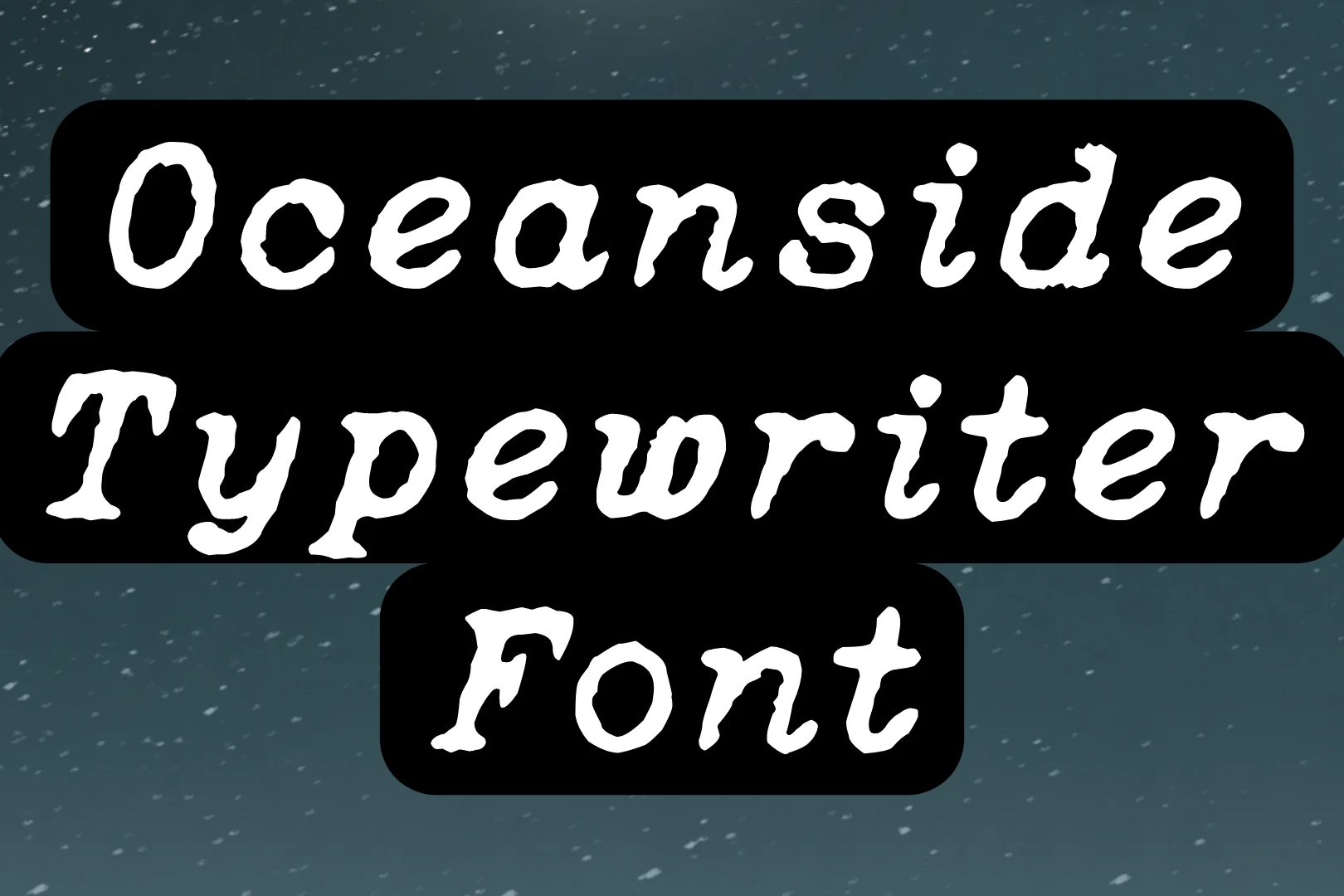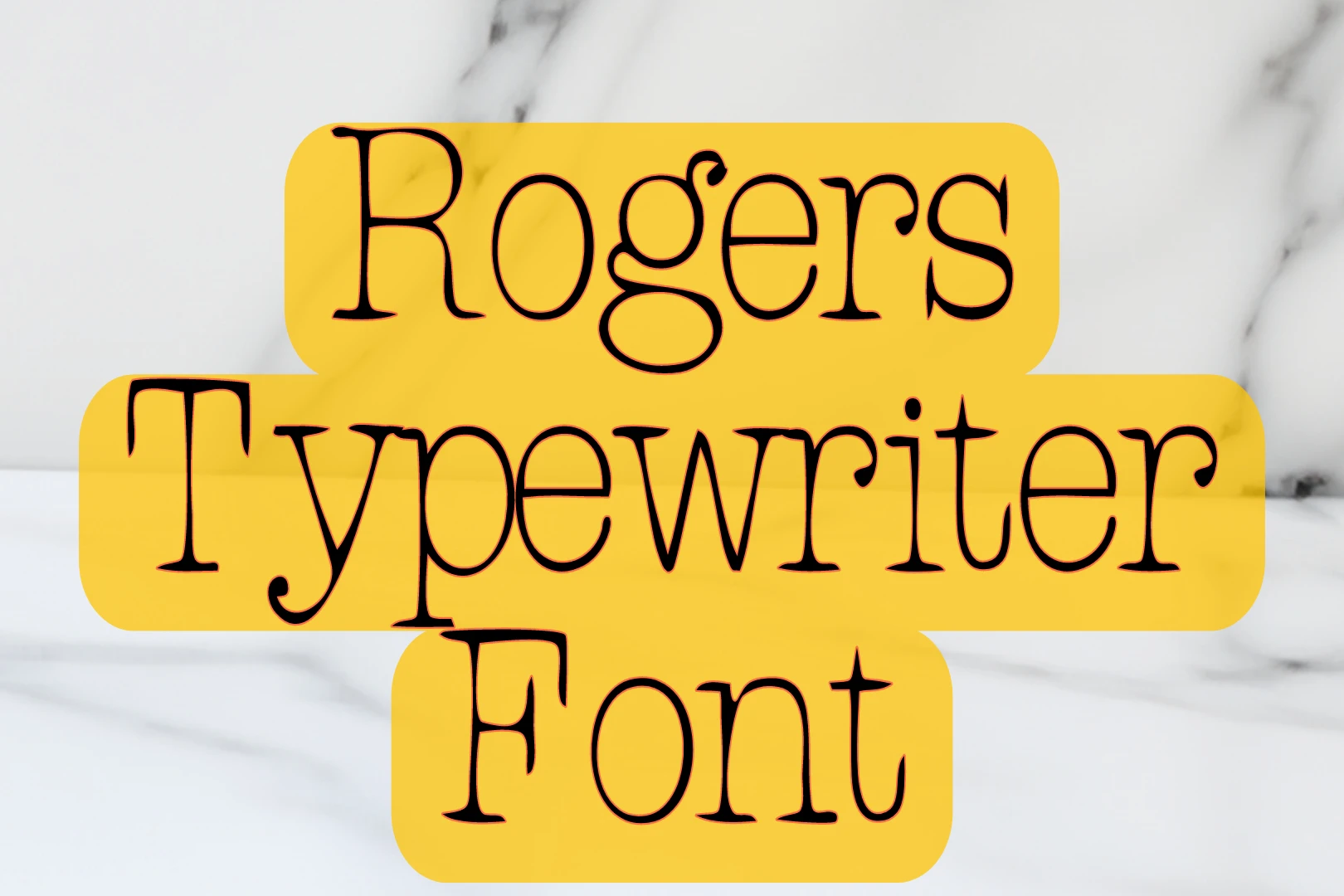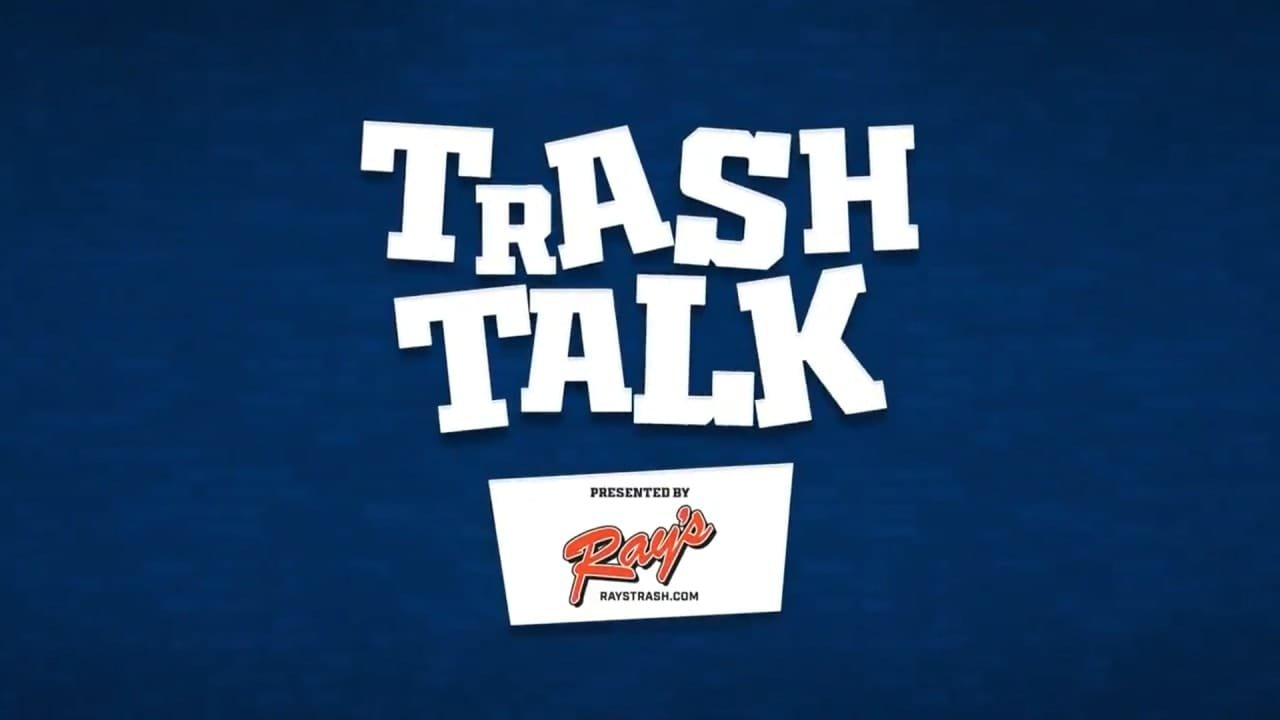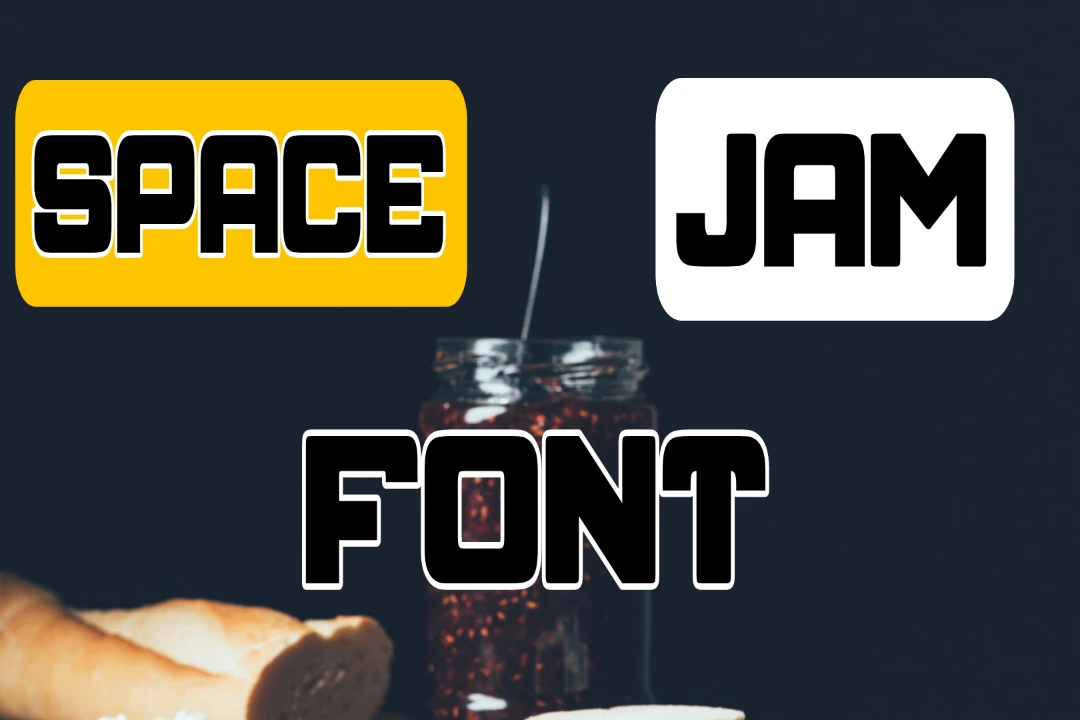
Space Jam Font was designed by a famous graphic designer that is known as the name of Carol Twombly. This unique texture is perfect for various creative projects, it is freely available for personal use and can be downloaded easily. It comes in multiple formats, …
‘Miami Vice Font Free Download’ is a trending keyword among designers who want a retro and neon-style typeface. Inspired by the iconic Miami Vice logo, this font falls under the fancy and retro display category and is perfect for vintage-themed designs. It is widely used …
Falsthan Font is a modern and sleek sans-serif typeface designed by Nikita Galkin and published by TypeType. With its clean lines and geometric forms. It is designed to meet the needs of contemporary digital and print design. The font was created with versatility in mind, …
Metropolian Font was designed by Empire of Dust and is under the category of fancy texture family with both OTF and TTF file formats. It is a versatile font that adds an elegant touch to any design project. With its intricate details and sophisticated curves, …
The Trash Talk Font is an innovative typeface designed and published by MJType. It falls under the category of urban fonts, known for their edgy and street-inspired appearance. With its bold design, it offers a unique personality that can enhance various design projects. It was …
The Golden Star font, designed by Jonathan S. Harris, is a captivating typeface falling under the Fancy and Cartoon categories. This font created in 2013, it offers a playful yet elegant aesthetic, making it a versatile choice for various design projects. With hand-drawn strokes and …
Jelly Crazies Font is a captivating font designed by Imagex, seamlessly nestled within the vibrant and dynamic Cartoon Texture font family. This font boasts a unique and whimsical personality that sets it apart, making it an ideal choice for projects seeking a playful and lighthearted …
Maquina De Escribir Font was designed by a famous typographic designer Woodcutter and stands out as an extraordinary typewriting marvel. This fancy font boasts a collection of exceptional glyphs and characters, delivering a unique typewriting texture that adds a distinctive touch to various design projects. …
Oceanside Typewriter Font, is a brainchild of the creative mind Lukas Krakora, is a delightful fusion of nostalgia and modern design. Transporting us back to the era of classic typewriters, this font injects a unique character into contemporary projects, offering designers a distinctive touch that …
Radio Newsman Font, a creation of typographic visionary Shara Weber, is a font that seamlessly blends vintage charm with contemporary design elements. Weber’s keen eye for detail and passion for redefining traditional typography shine through in this distinctive typeface. The characters of Radio Newsman Font …
Jake Luedecke, a famous designer, made Lindys Diner Font. It’s a cool style of writing that belongs to the fancy texture family. You can get it in two formats, OTF and TTF. If you want to make your plain writing look stylish and cool, there’s …
The Rogers Typewriter Font is a captivating typeface that brings the charm of vintage typewriters to modern design projects. Crafted with meticulous attention to detail by a talented designer.